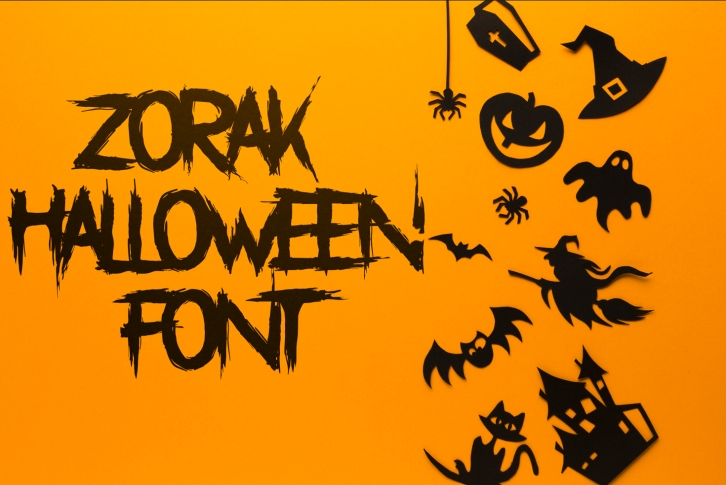
Zorak Halloween is a scary, creepy, unique handwritten font, perfect for complementing your most creative ideas and Halloween projects! Use it on invitations, branding projects, watermarks, magazines, and more.